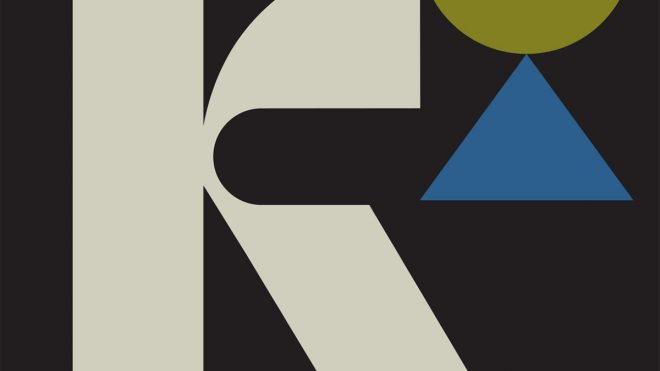
Paris-based studio Violaine & Jérémy is a multidisciplinary creative studio that typically works across identities, poster design, illustration, typography and more. Made up of Jérémy Schneider and Violaine Orsoni, the studio believes in “beauty, refinement, delicacy and timelessness”. As a result, Violaine & Jérémy’s portfolio is bursting with projects that are not only beautiful but are executed with precision and finesse.
The latest project from the studio is a typeface called Cako, originally designed by Schneider for a brand identity that was never presented to the client. “We design many custom fonts for our projects, but we only use 20% of what’s produced,” the studio says. “We began designing Cako with the G and the K. The shapes are inspired by Art Deco, but we transformed the shapes to make them more contemporary with a lot less decoration.”
Another reference for the pair was a typeface from the 70s, designed by Austrian graphic designer Othmar Motter. Called Motter Ombra, the typeface is beautifully dramatic like Cako, and was distributed by Berthold Fototypes as film type and Letraset.
Cako is Violaine & Jérémy’s first full family typeface, having previously only designed what they needed for a project, and it comes in three weights plus an italic iteration. “We learned while doing,” says the studio of its approach. “We feel a typeface has to be perfect to be sold on the market, so it took some back and forth to get there as it’s a precise and long process.”
The beauty of Cako is the contrast between thick and thin, the chunkiness to the typeface is offset by the delicate serifs. This elegance is emphasised by the way Violaine & Jérémy has presented the font, with gifs that emulate the simple graphic shapes all in muted colour palettes of olive greens, rusty oranges and rose pinks.
With a broad range of clients including a French burger company, a magazine all about the brain and a 140-year-old theatre, creating a typeface from scratch offered the studio a change of pace. “Creatively speaking, it’s much easier to work on a typeface because we are our own client,” says Violaine & Jérémy. “We are just driven by achieving what we love. Our typefaces are our personal projects.”
It’s refreshing to for busy studio like Violaine & Jérémy to value the benefit of working on personal projects in between client-driven work. Not only does it keep the studio’s passion alive, but we also get an insight into what makes them tick creatively.